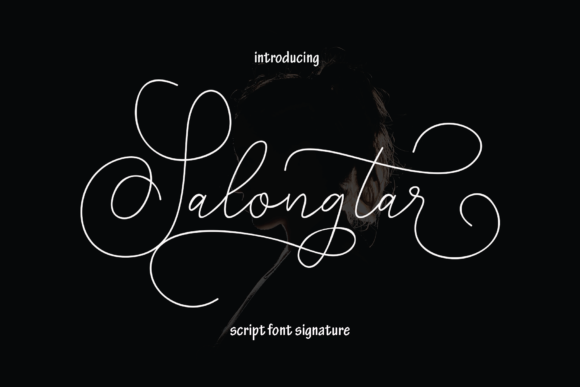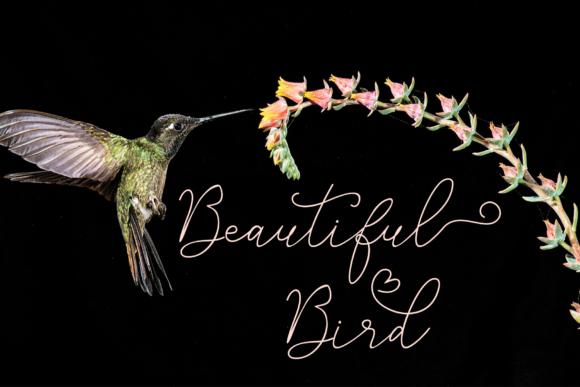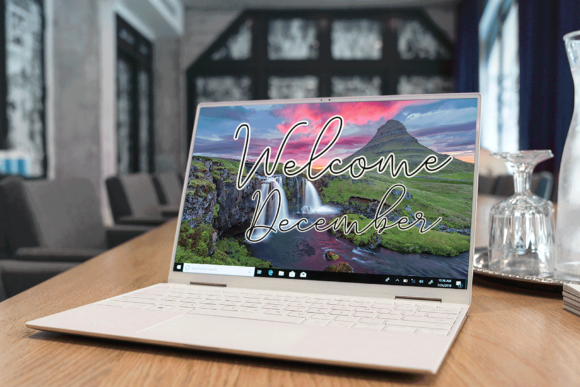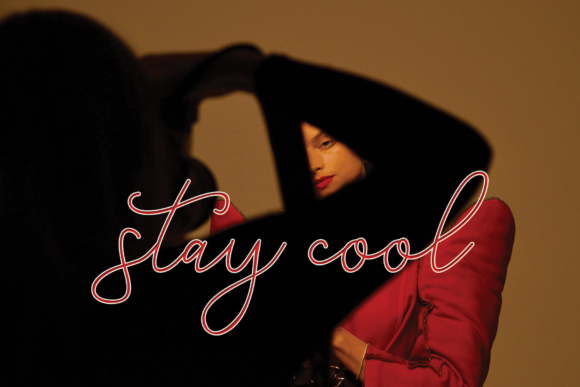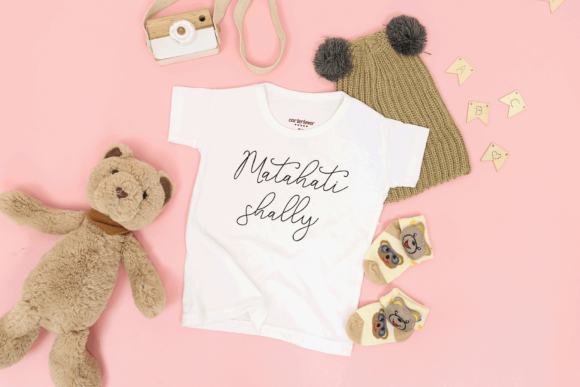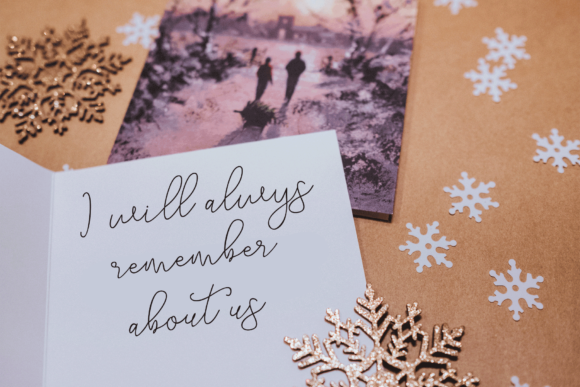
About Salongtar Font
Salongtar is a signature font. Designed by handwriting, this font has modern and unique forms of calligraphy. The writing style is very natural. You can use this script font for quotes, book titles, t-shirts, mugs, wall art, stickers, fashion, magazines, branding, cards, and more!